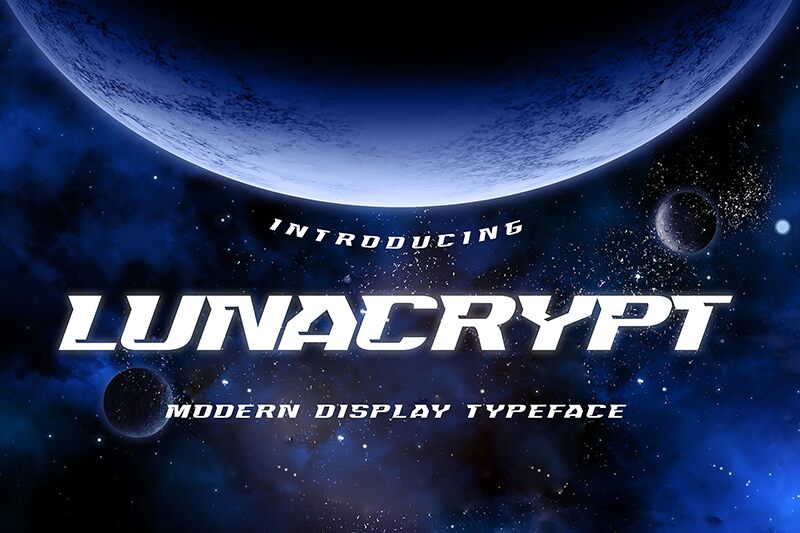
Lunacrypt
Lunacrypt, crafted by the innovative Gassstype, is a display font that boldly ventures into the realm of the futuristic. With its expanded width and assertive bold weight, this typeface commands attention and conveys strength. The sharp angles and sleek lines encapsulate a modern aesthetic that seems to draw inspiration from science fiction and advanced technology.
Visually, Lunacrypt exudes a sense of cutting-edge design that is both striking and eminently readable. Its distinctive character shapes make it an ideal choice for projects requiring a touch of the avant-garde without sacrificing legibility. The expansive letterforms suggest openness, making it an excellent fit for large-format applications such as signage or poster work.
Whether you're designing for digital media or print, Lunacrypt's style is versatile enough to elevate branding materials, editorial spreads, or any creative project aiming to leave a memorable impression. Its unique appearance will surely captivate viewers and imbue any composition with a forward-thinking vibe that's hard to overlook.